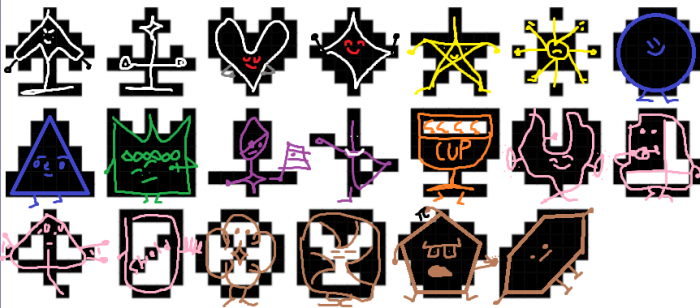
i drew every suit as people or bfdi characters
[a]=Spade, [b]=Clubs, [c]=Hearts, [d]=Diamonds, [e]=Star, [f]=Sun, [g]=Circle, [h]=Triangle, [i]=Crown, [j]="Bastos" (Spanish clubs)
[k]="Espadas" (Swords), [l]="Copas" (Cups), [m]="Schelle" (Bells), [n]="Eichel" (Acorns), [o]="Grün" (Leaves), [p]="Schilten" (Shield), [q]="Rosen" (Roses), [r]="Mitsudomoe", [s]=Pentagon, [t]=Hexagon (sideways)
[u]=Moon, [v]=Anchor, [w]=Trident, [x]=Axe, [y]=Blade, [z]=Jokers.
(i updated the shield)